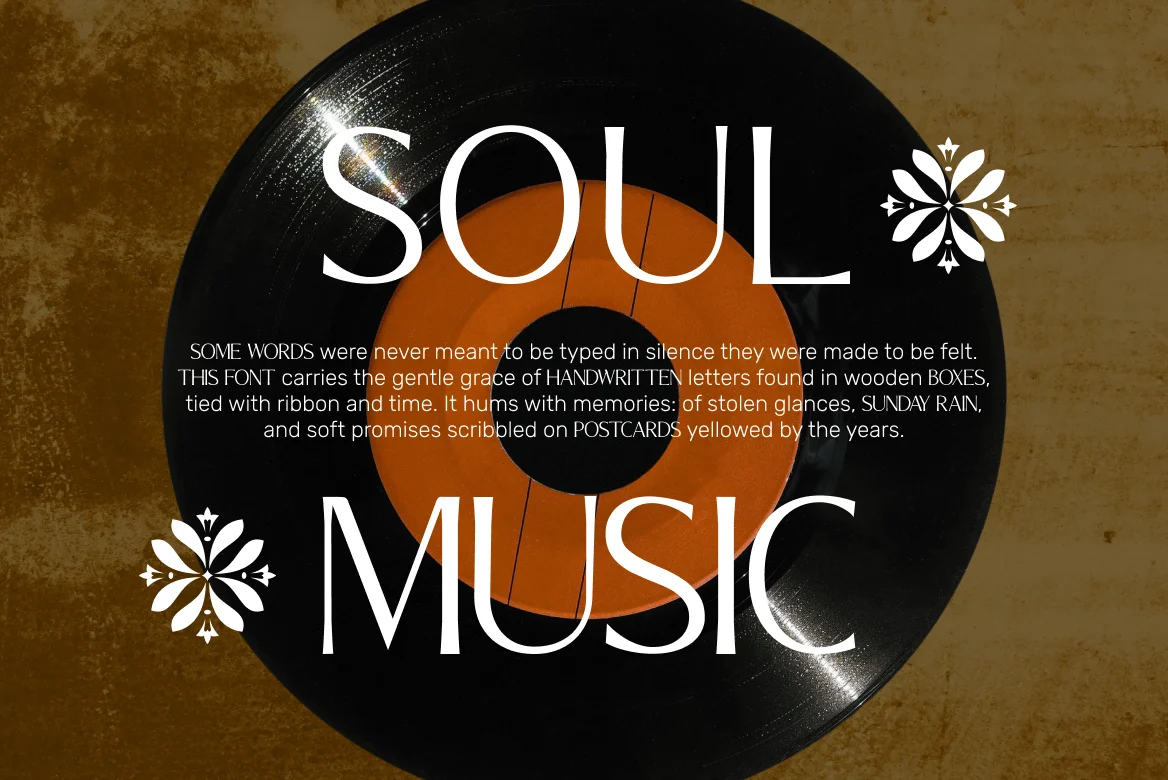
Alba Ophezia Romantic Vintage Font
Alba Ophezia is a romantic vintage-inspired serif typeface that evokes timeless elegance and handwritten charm. With graceful curves and a refined structure, it's ideal for nostalgic branding, perfume labels, editorial layouts, and retro packaging. Each letter feels thoughtfully crafted, making this font a perfect match for projects that value sophistication, heritage, and warm visual storytelling. Alba Ophezia transforms any design into a poetic expression of vintage beauty.
Suitable For: Perfume branding, editorial spreads, vintage ads, packaging design, romantic invites, timeless logos, fashion catalog, nostalgic print, boutique branding, retro posters, luxury tags, book covers, handwritten style, wedding branding, candle labels, artisan goods, classic layouts, decorative accents, premium cards, heritage themes